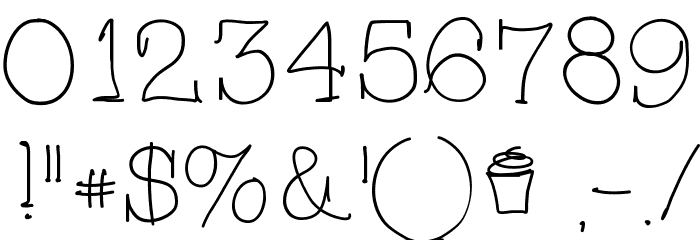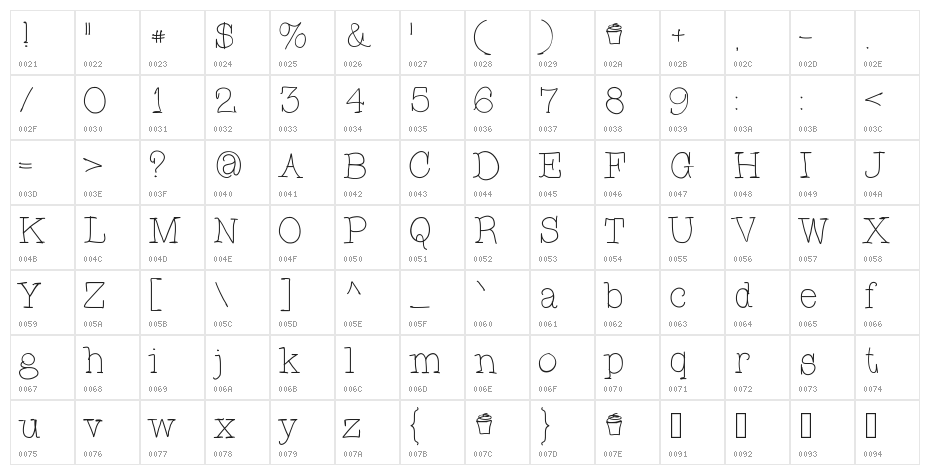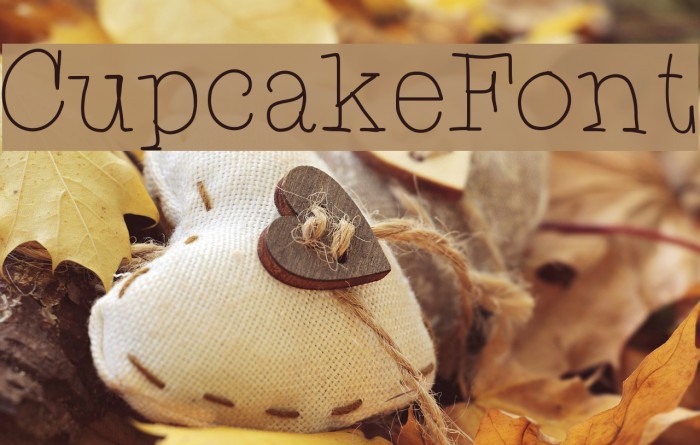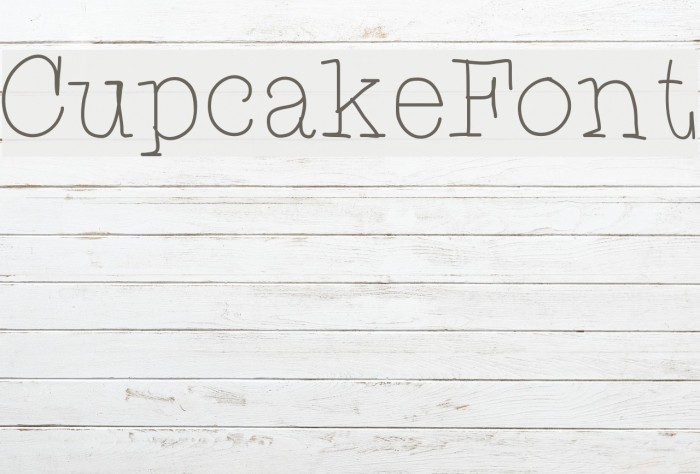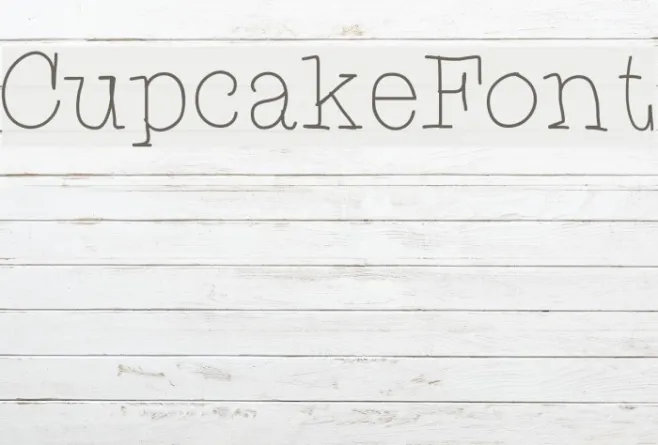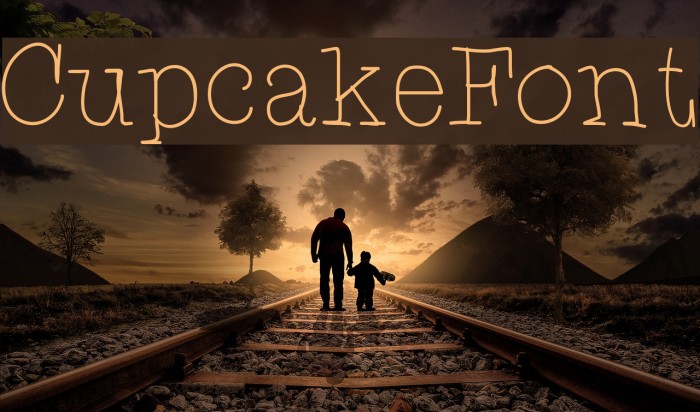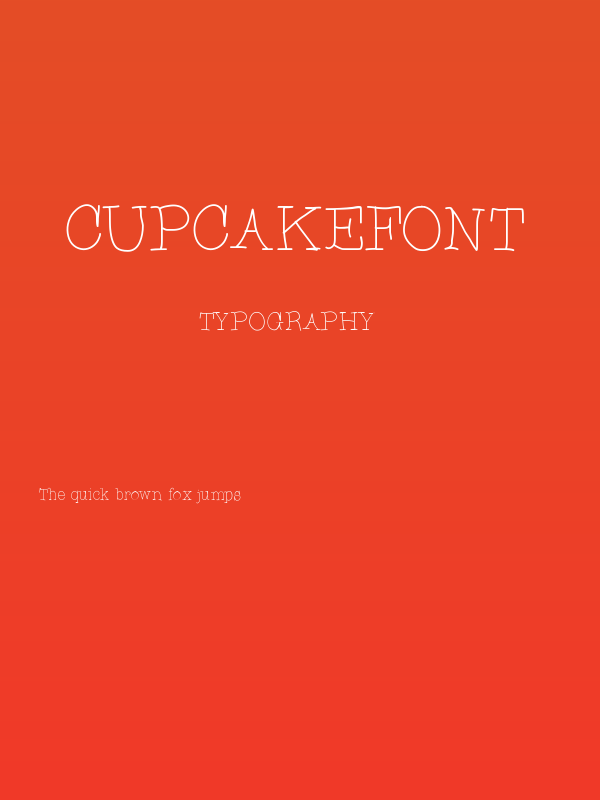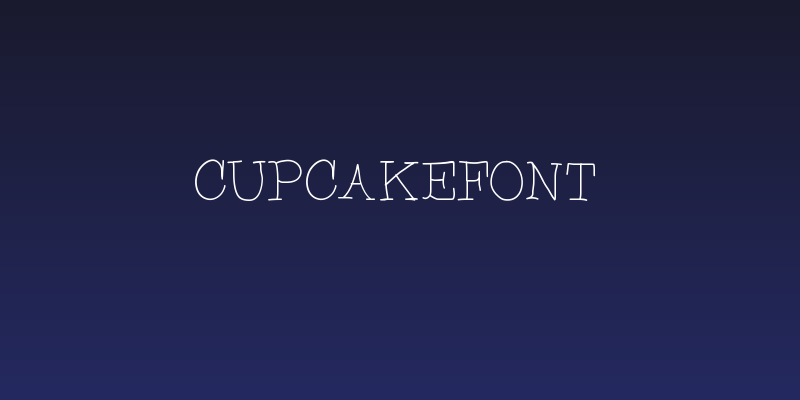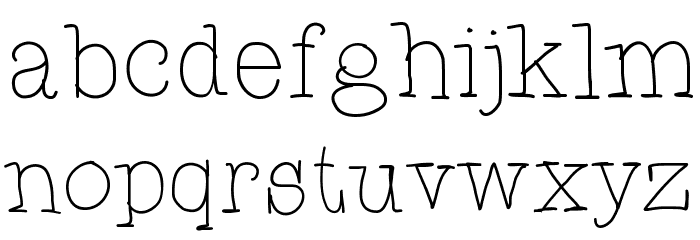
CupcakeFont Font
CupcakeFont Description
This playful and whimsical font features a hand-drawn style with a unique charm. The letters are slightly irregular, giving them a casual and friendly appearance. The uppercase and lowercase characters maintain a consistent style, with rounded edges and a slight tilt that adds to the font's informal nature. The numerals are equally playful, with a distinct personality that matches the letters. Special characters, including punctuation and symbols, are designed with the same quirky flair, making this font ideal for projects that require a touch of fun and creativity. The overall design is approachable and versatile, suitable for a variety of applications.
| Proposed Projects | Ideal for children's books, greeting cards, playful branding, and creative social media graphics. |